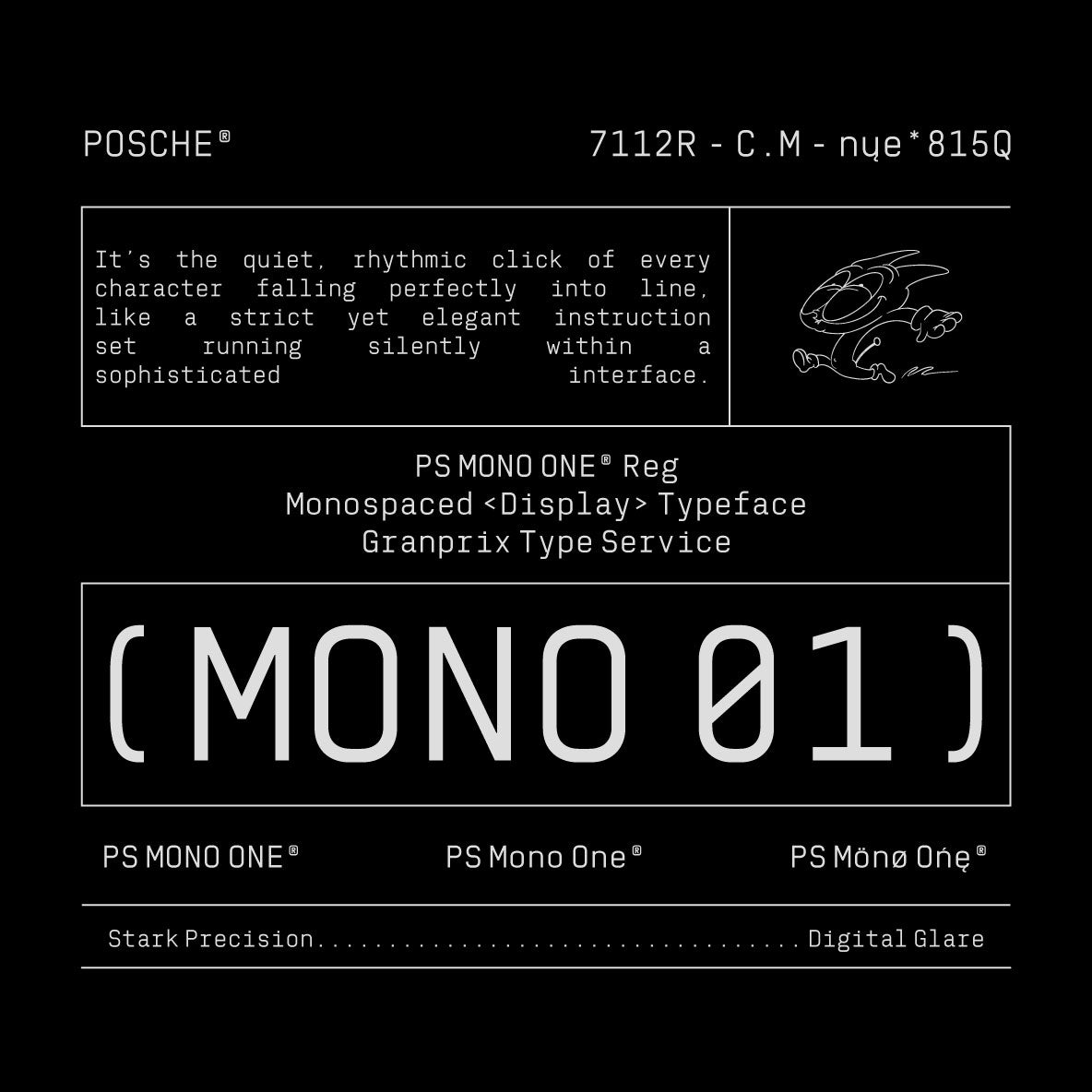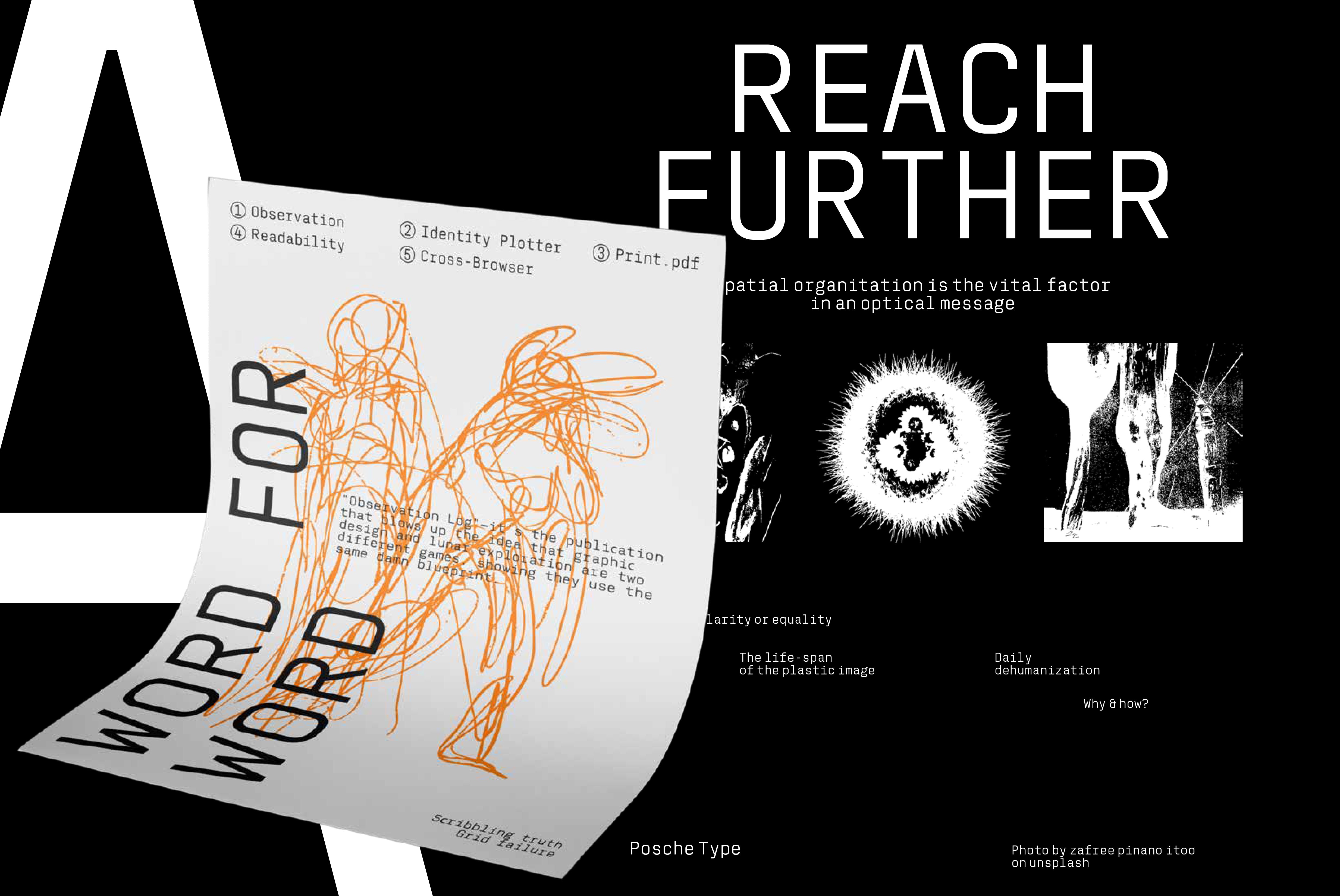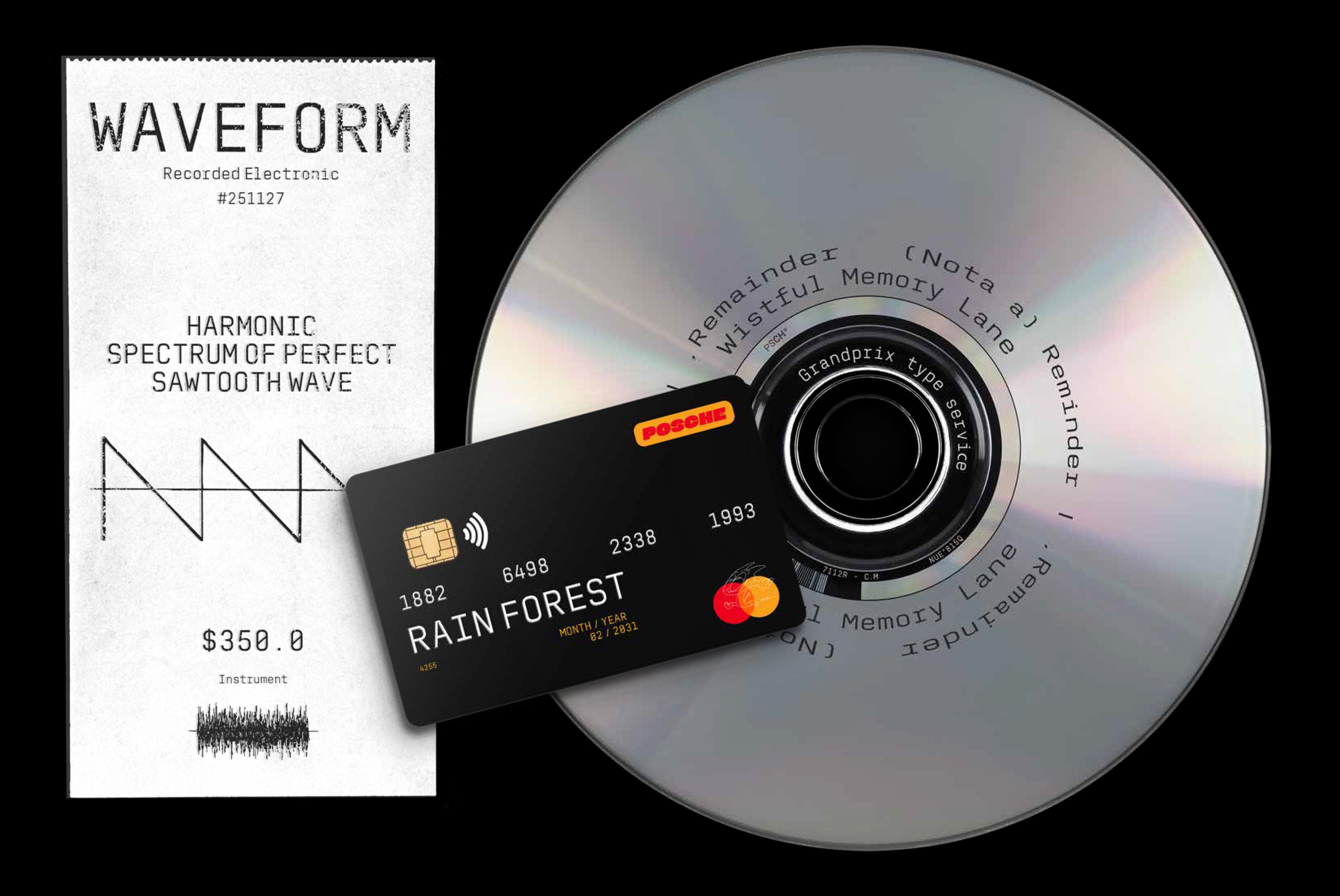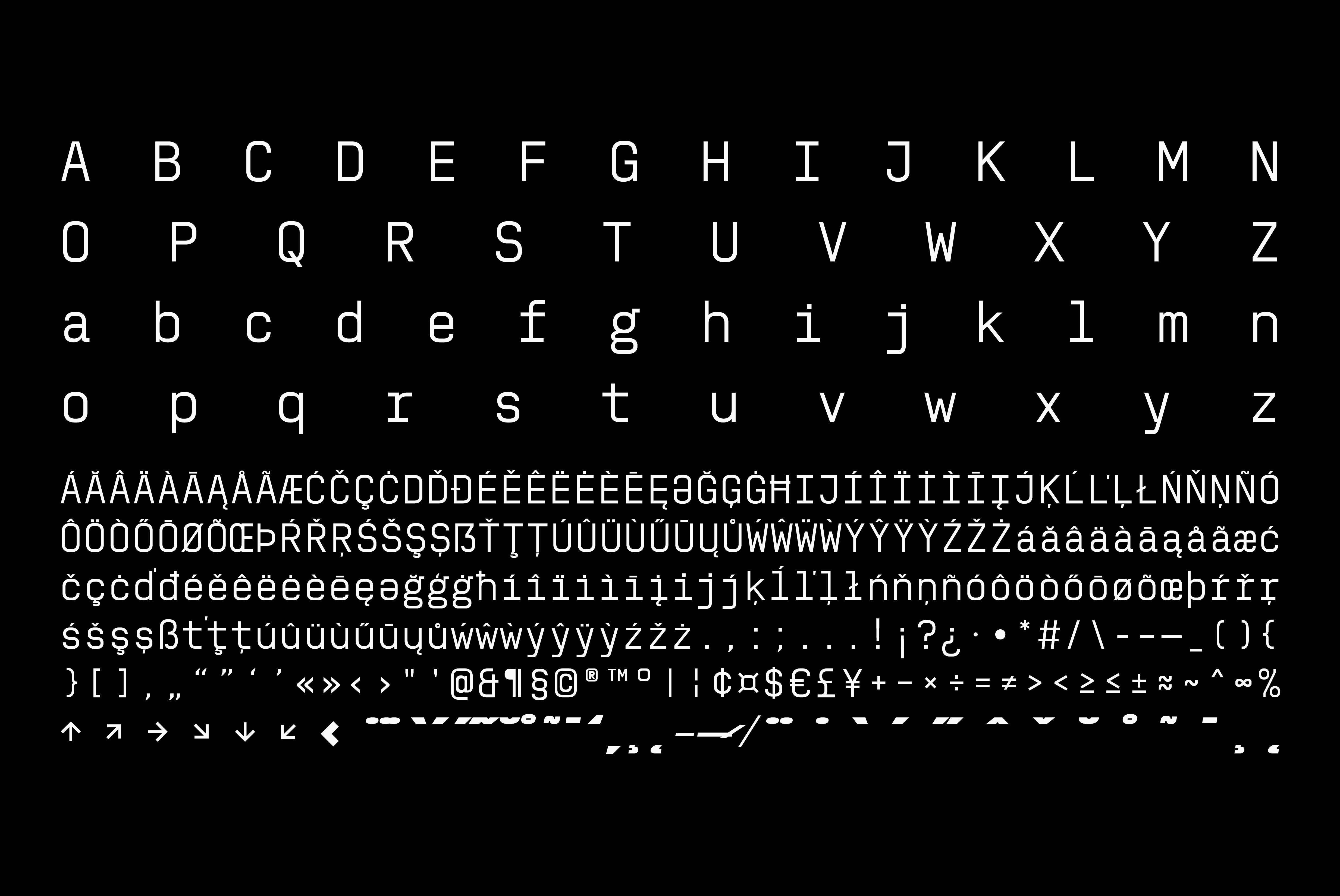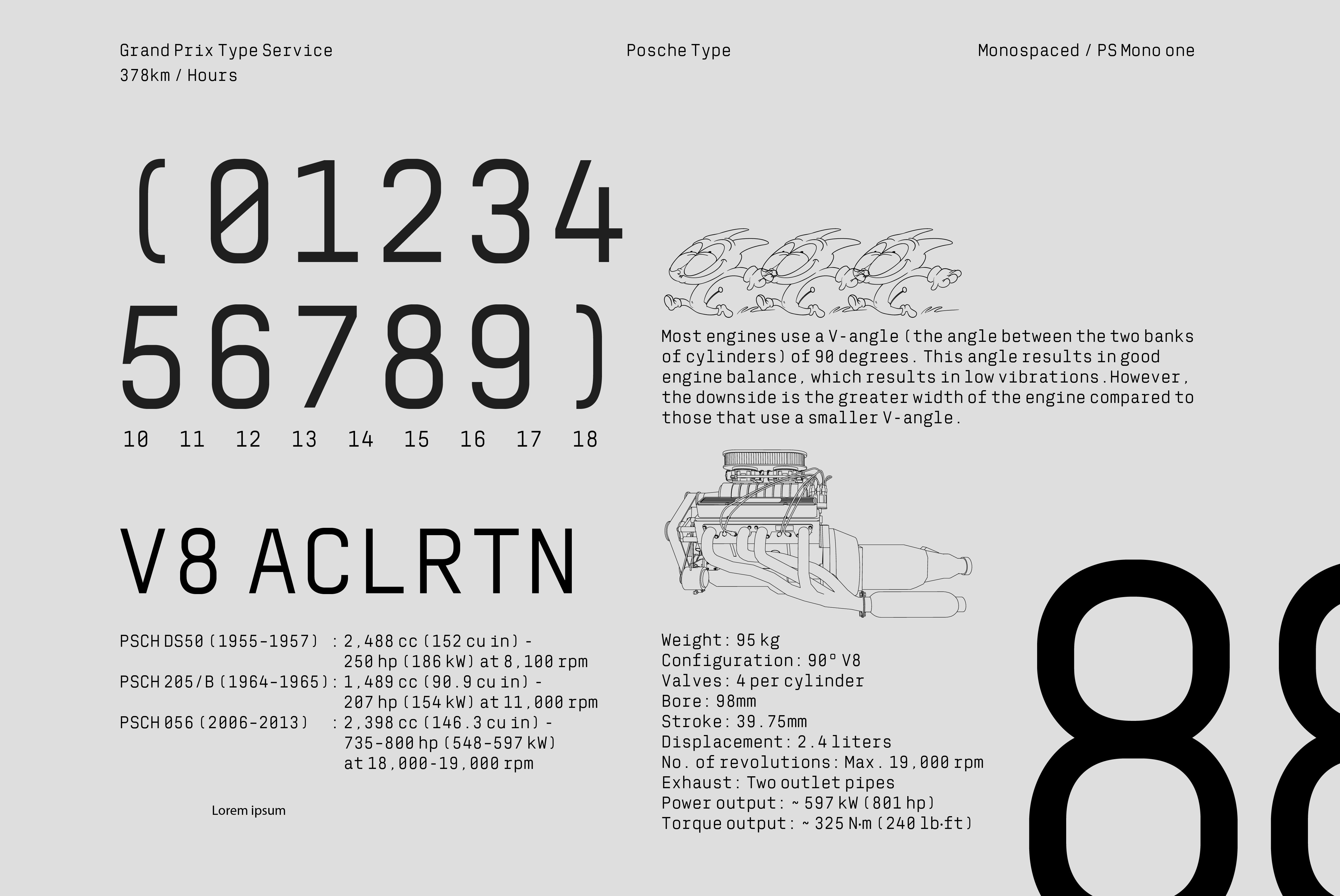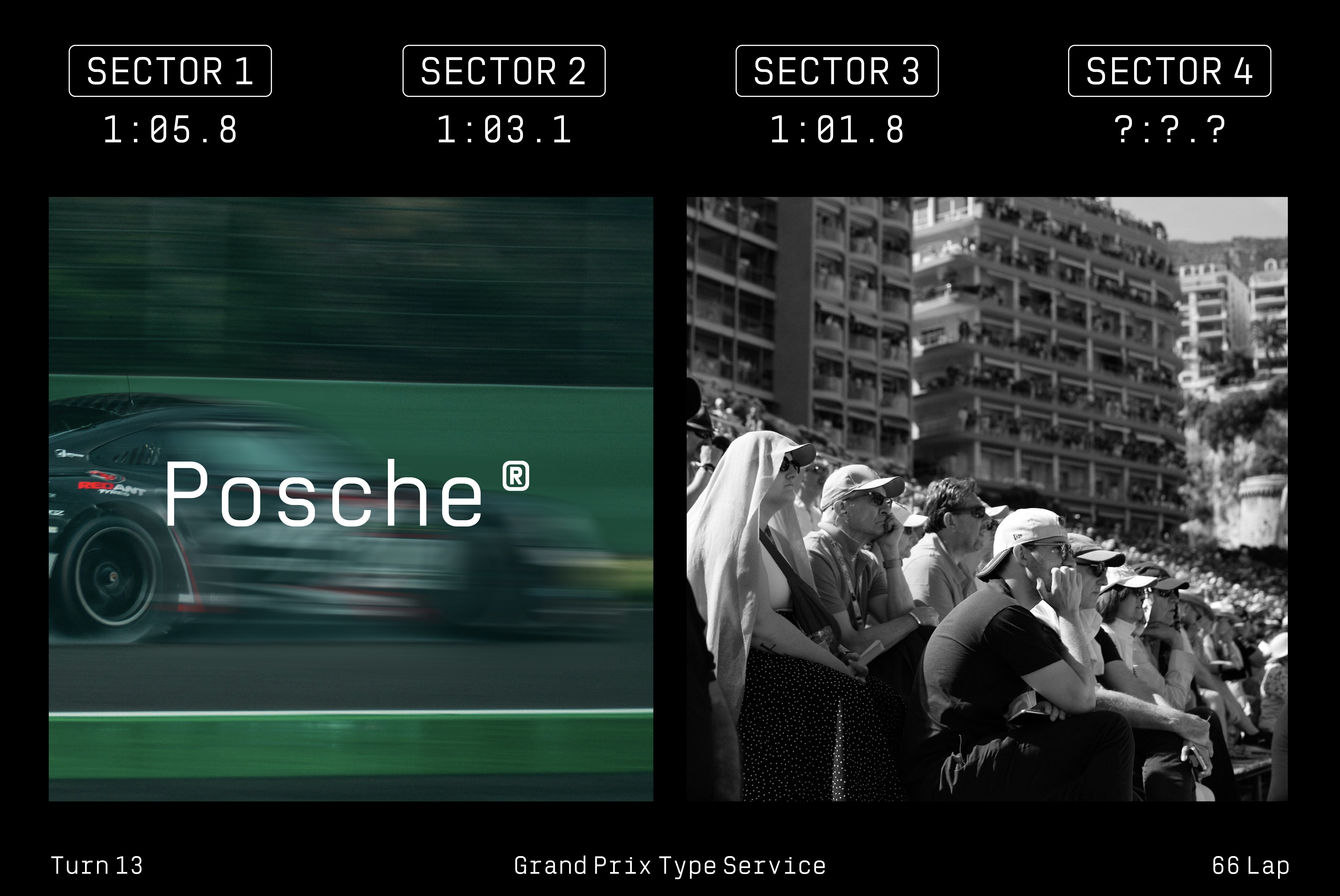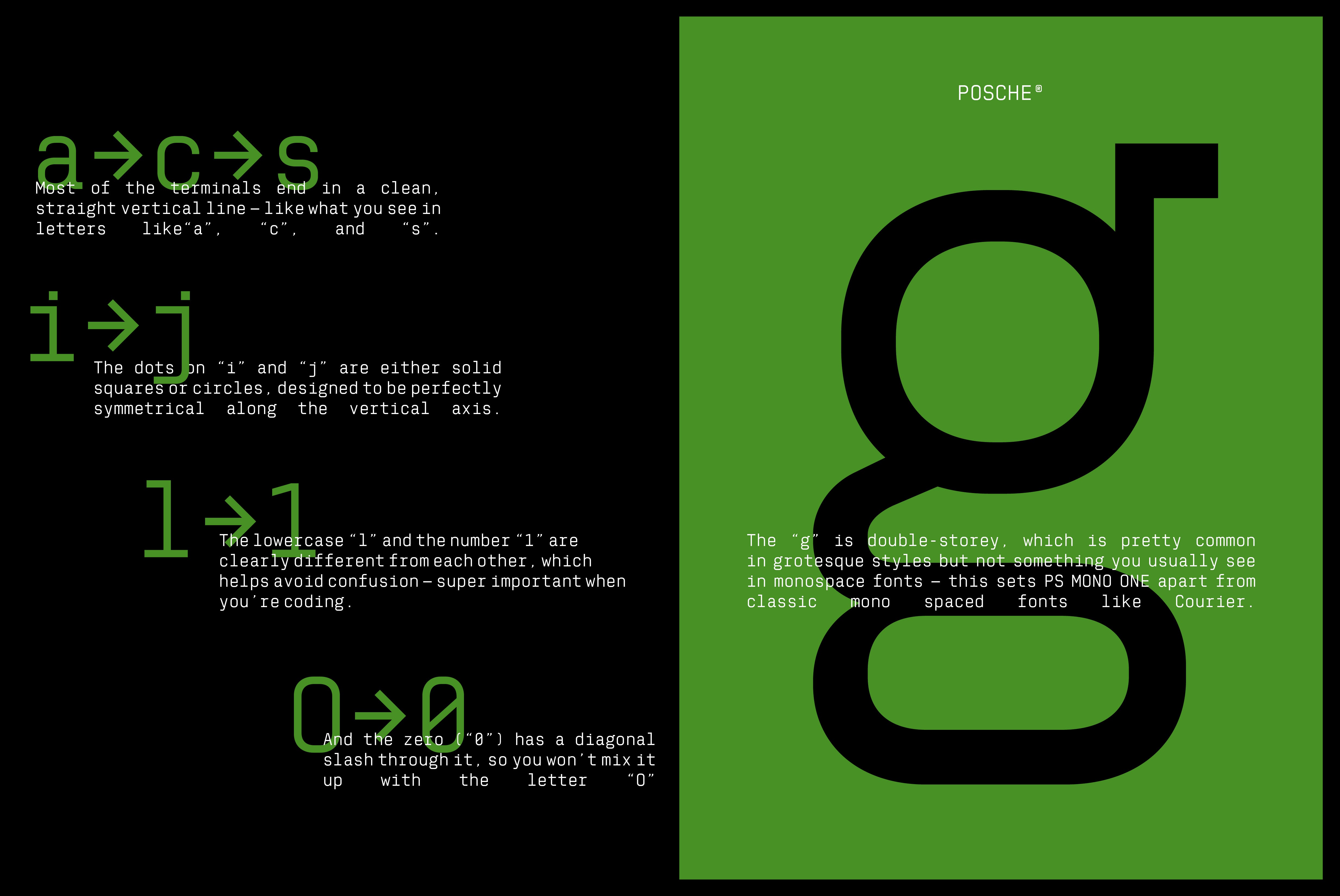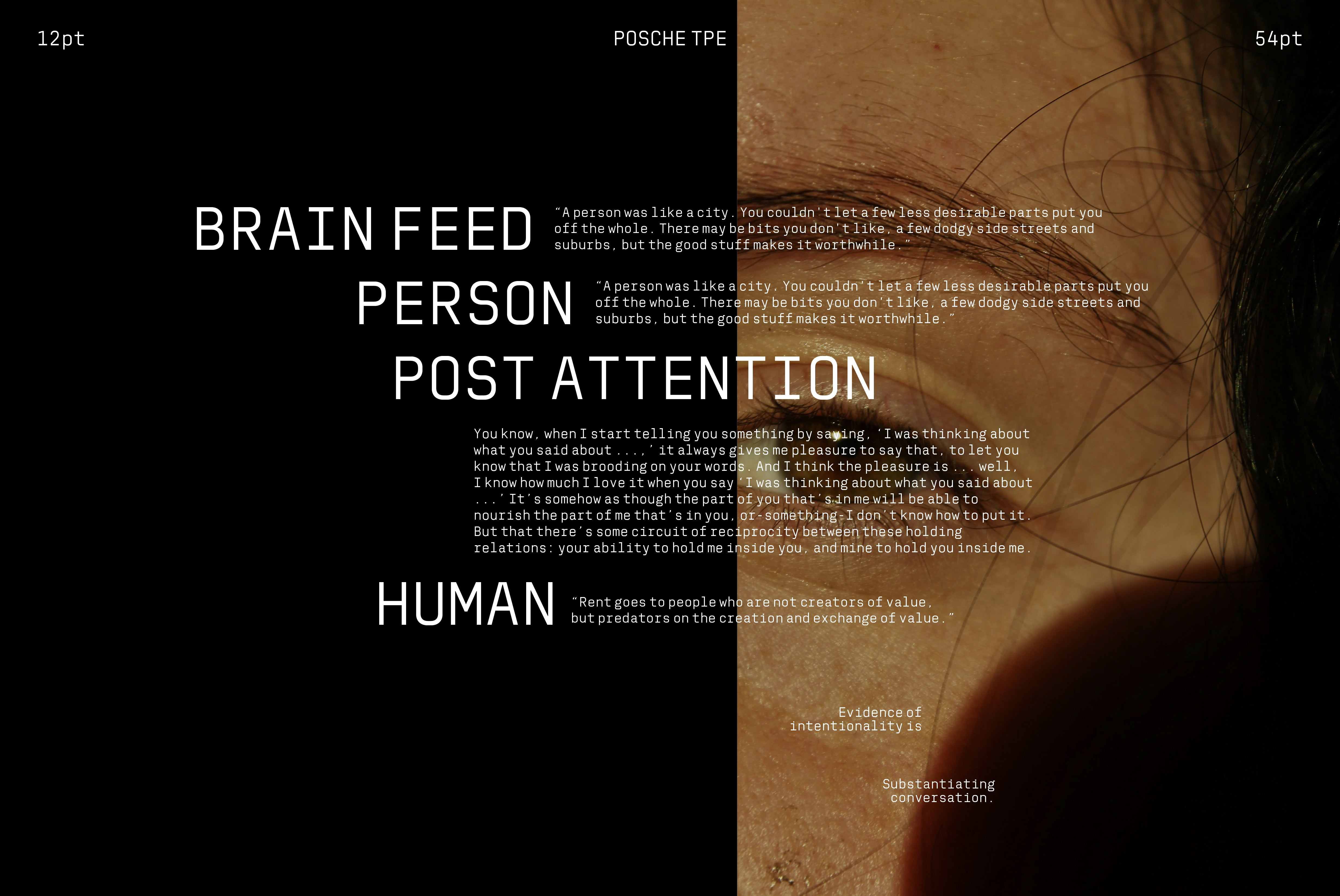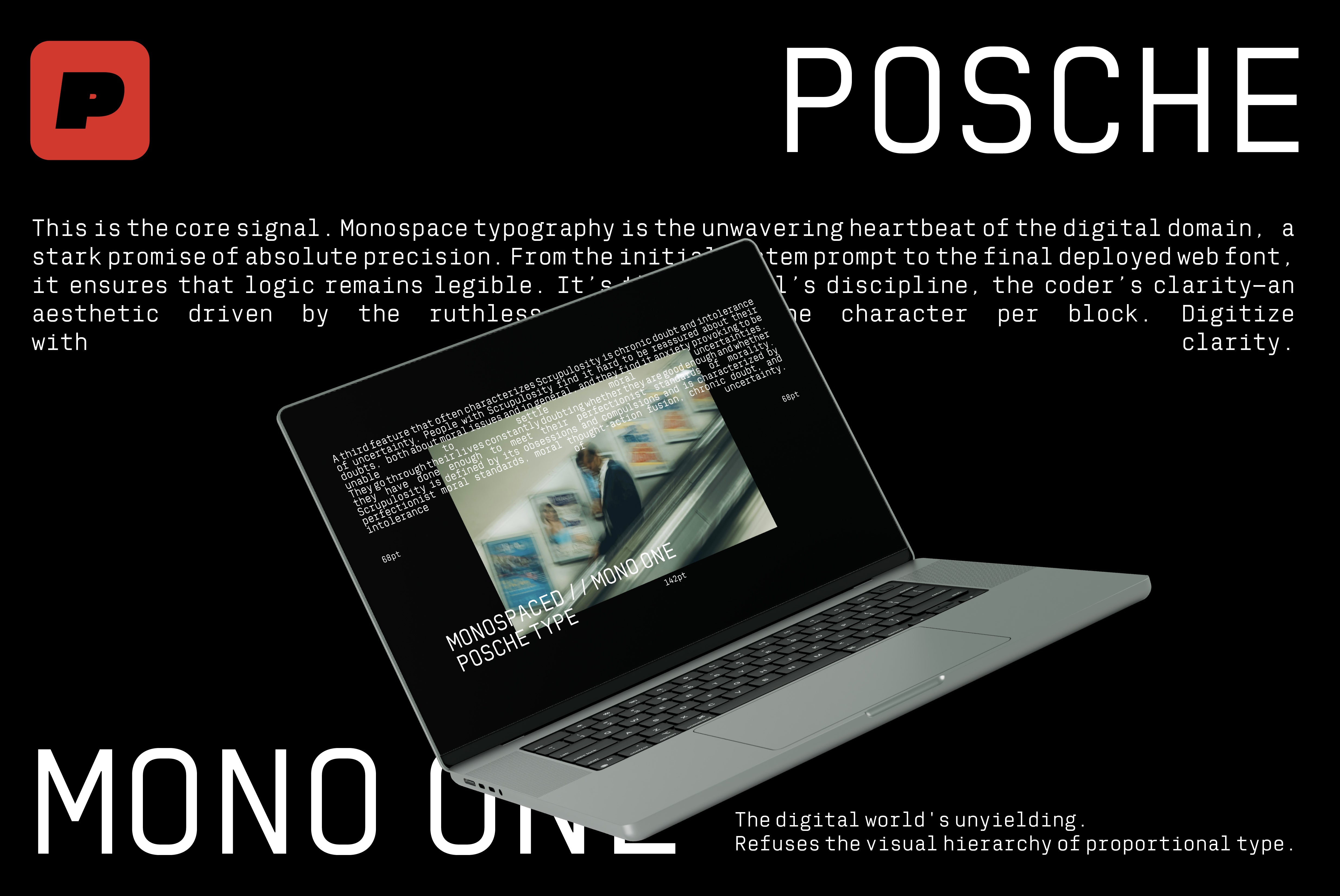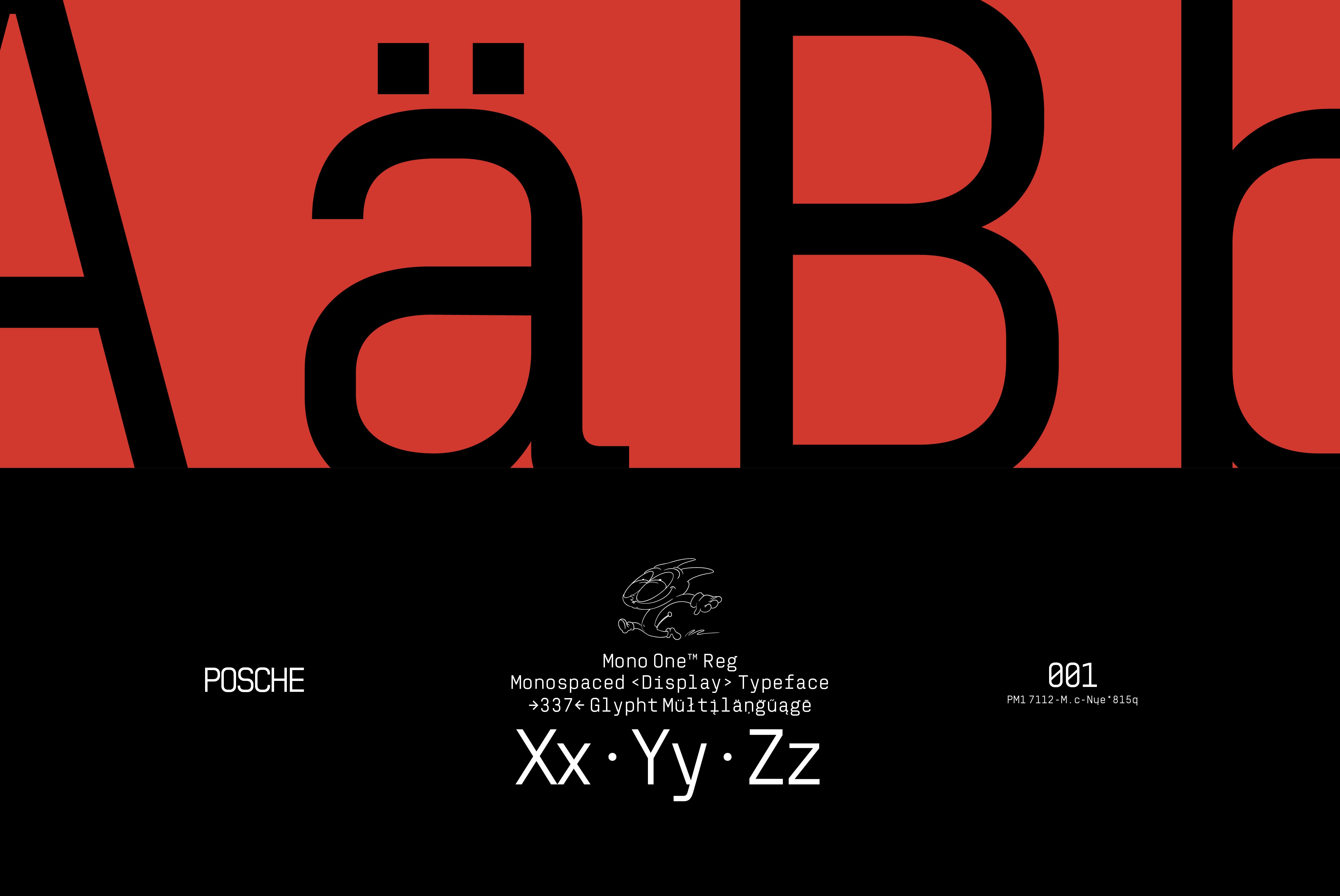
PS Mono One | Display Typeface
The PS Mono One is a geometric monospace typeface designed for high legibility, featuring precise forms and a modern digital aesthetic. Its fixed-width structure ensures clear character differentiation and vertical alignment, making it suitable for various applications requiring a clean and functional typographic solution.